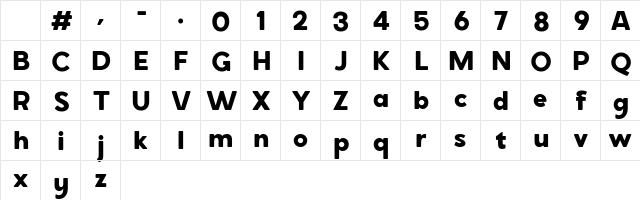
Complete ZT Grafton Regular glyph index. Displaying only characters natively supported by ZT Grafton Regular font.
ZT Grafton is a composed and adaptable typeface that performs quietly and consistently across a wide range of design contexts.